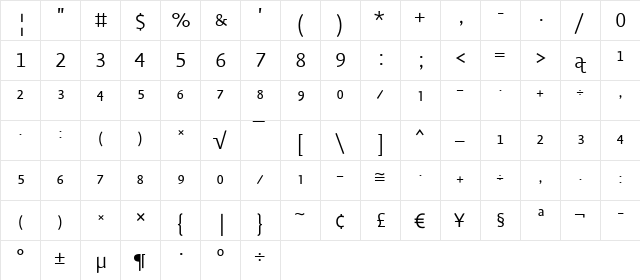
ProfileNO Light
Design Context for ProfileNO Typeface
ProfileNO is a composed and adaptable typeface that performs quietly and consistently across a wide range of design contexts. The delicate stroke weight brings airiness and refinement to layouts.